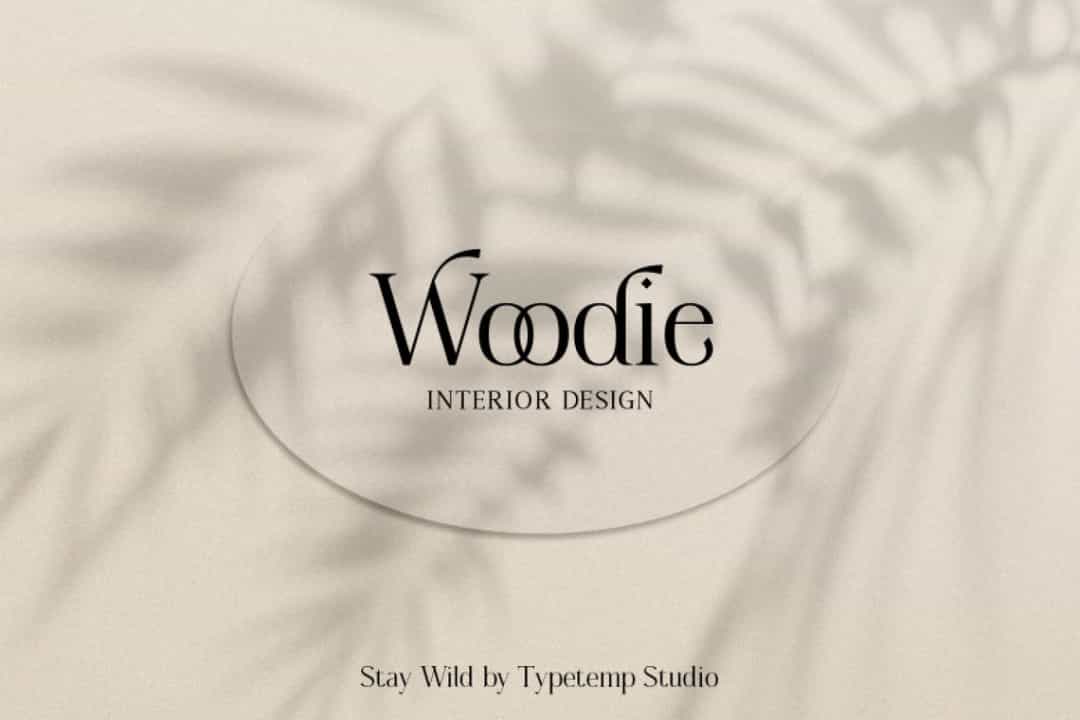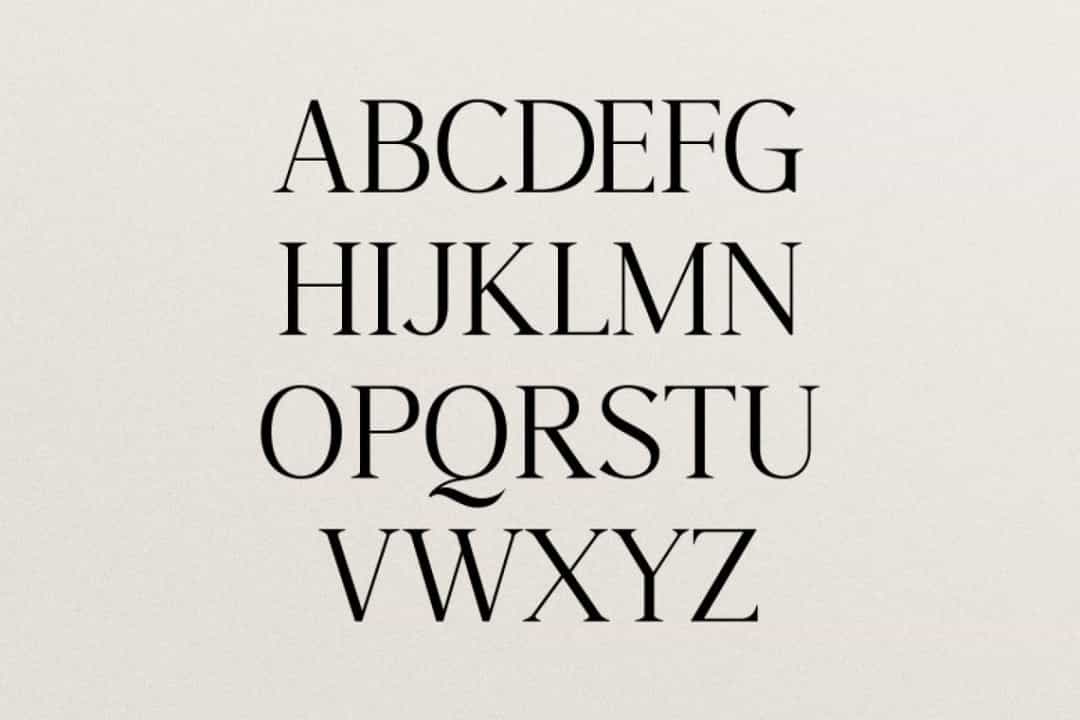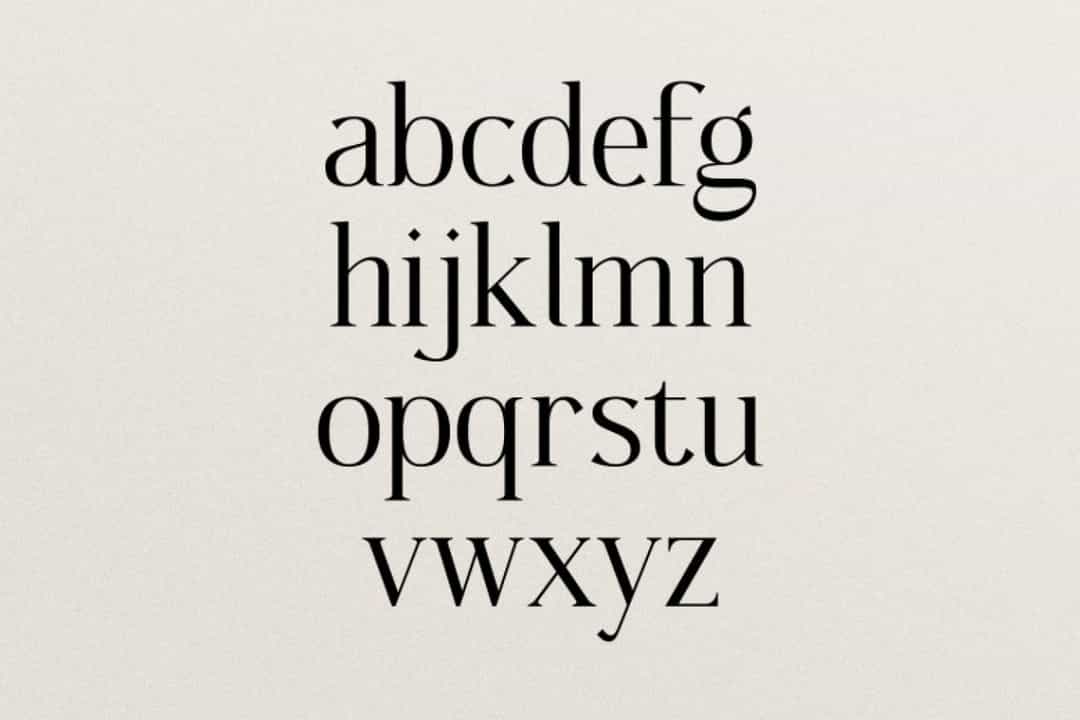
Discover Woodie Font, part of the Serif collection—a versatile and unique font perfect for adding a personal touch to your projects. Download it for free and enjoy crafting designs with style, from invitations to social media posts. This font is available exclusively for personal use, giving you the freedom to create without limits. Unlock your creativity with Woodie Font today!
Woodie Font is an elegant and stylish serif font. PUA encoded, its accessing all its glyphs, swashes, and characters easily! Experience its incredible versatility before using it to craft amazing designs!